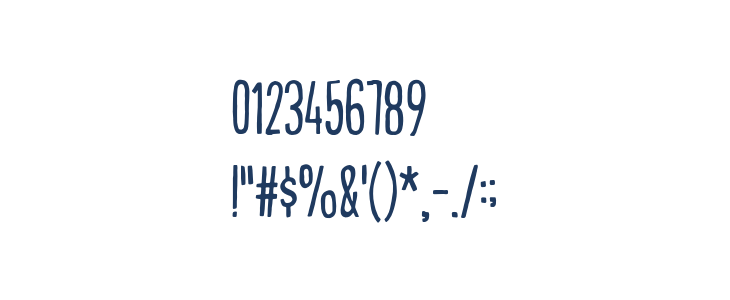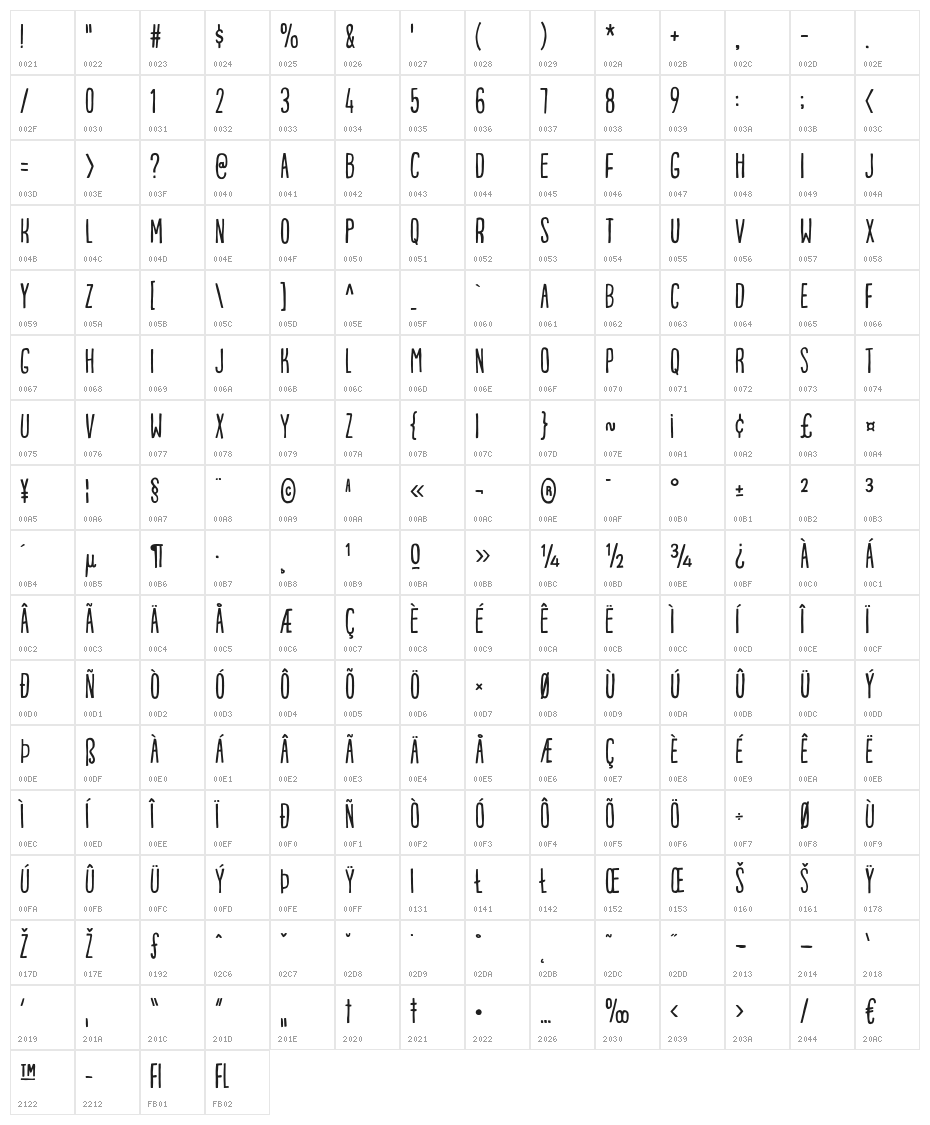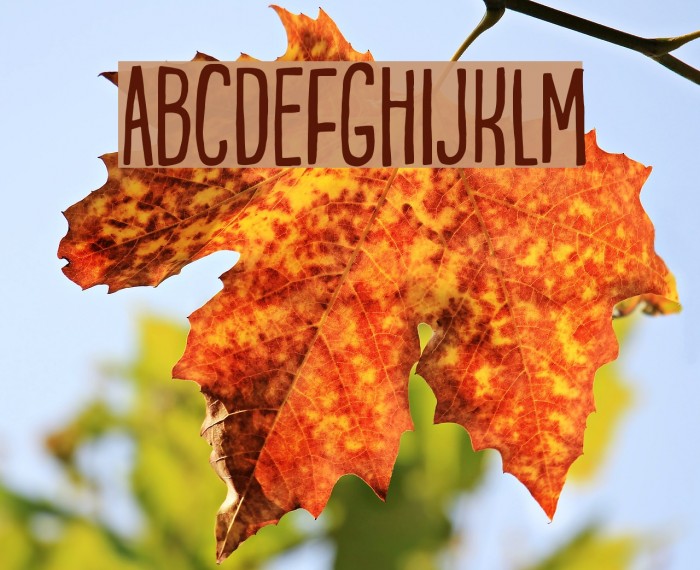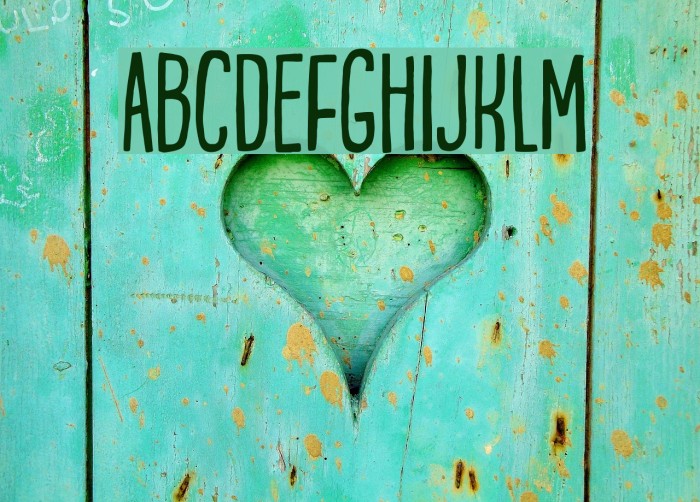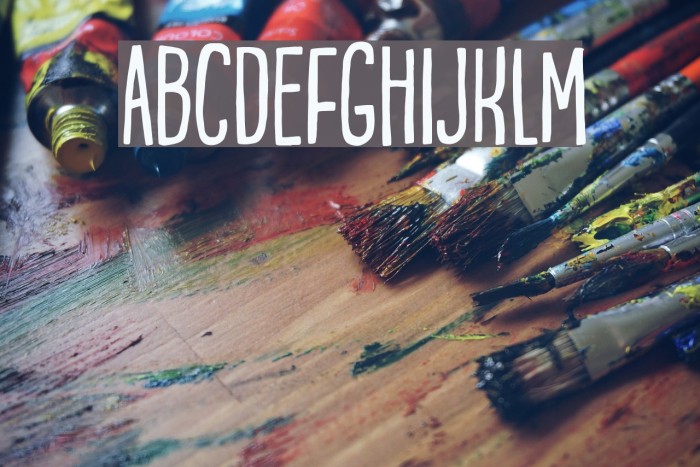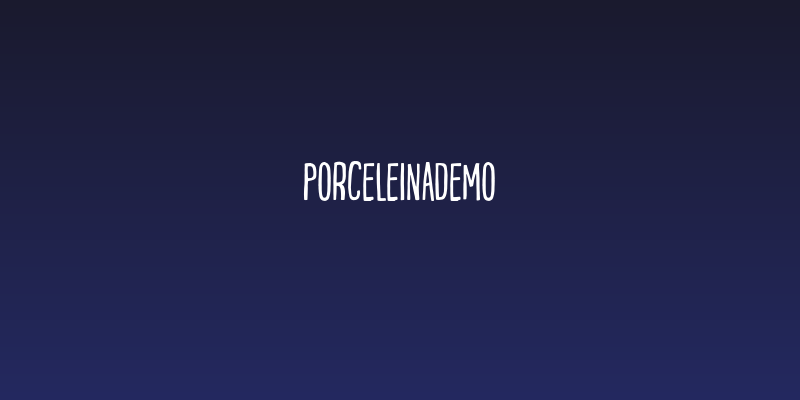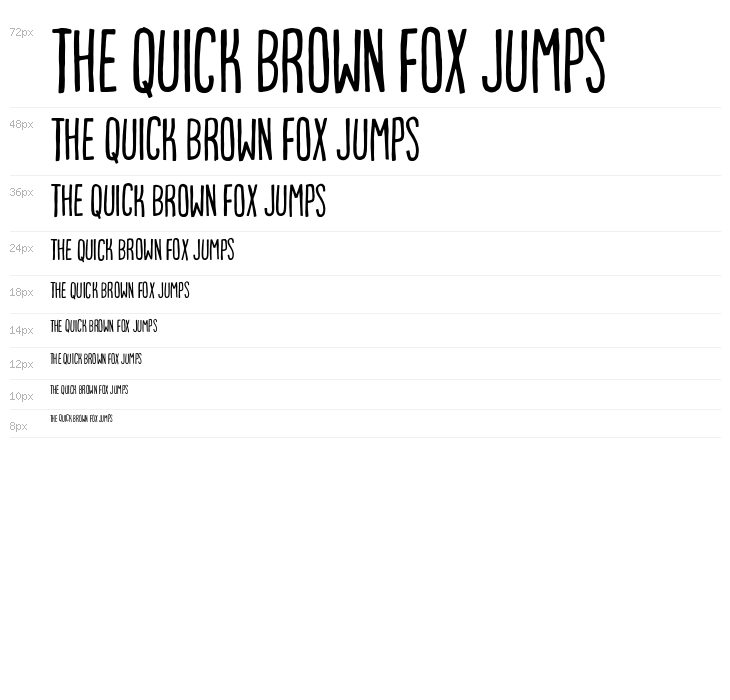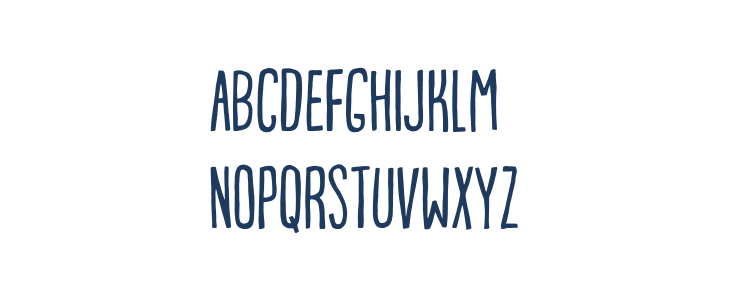
PorceleinaDEMO Font
PorceleinaDEMO Description
This font features a tall, narrow design with a hand-drawn aesthetic. The characters have a slightly irregular stroke, giving them a casual and artistic feel. The uppercase letters are elongated, while the lowercase letters maintain a consistent height, creating a harmonious balance. Numbers and special characters follow the same stylistic approach, ensuring uniformity across all glyphs. The font's unique style makes it suitable for creative projects that require a touch of personality and flair.
| Proposed Projects | Ideal for posters, invitations, branding, and any project that benefits from a creative and personal touch. |